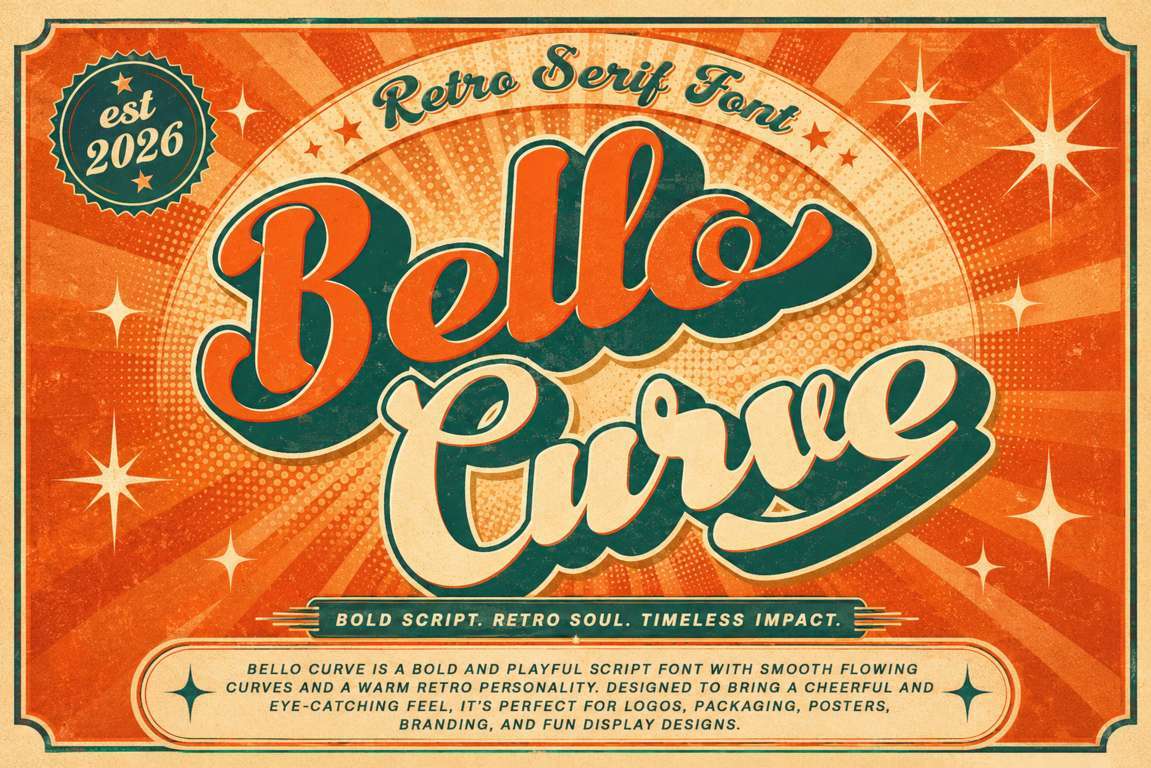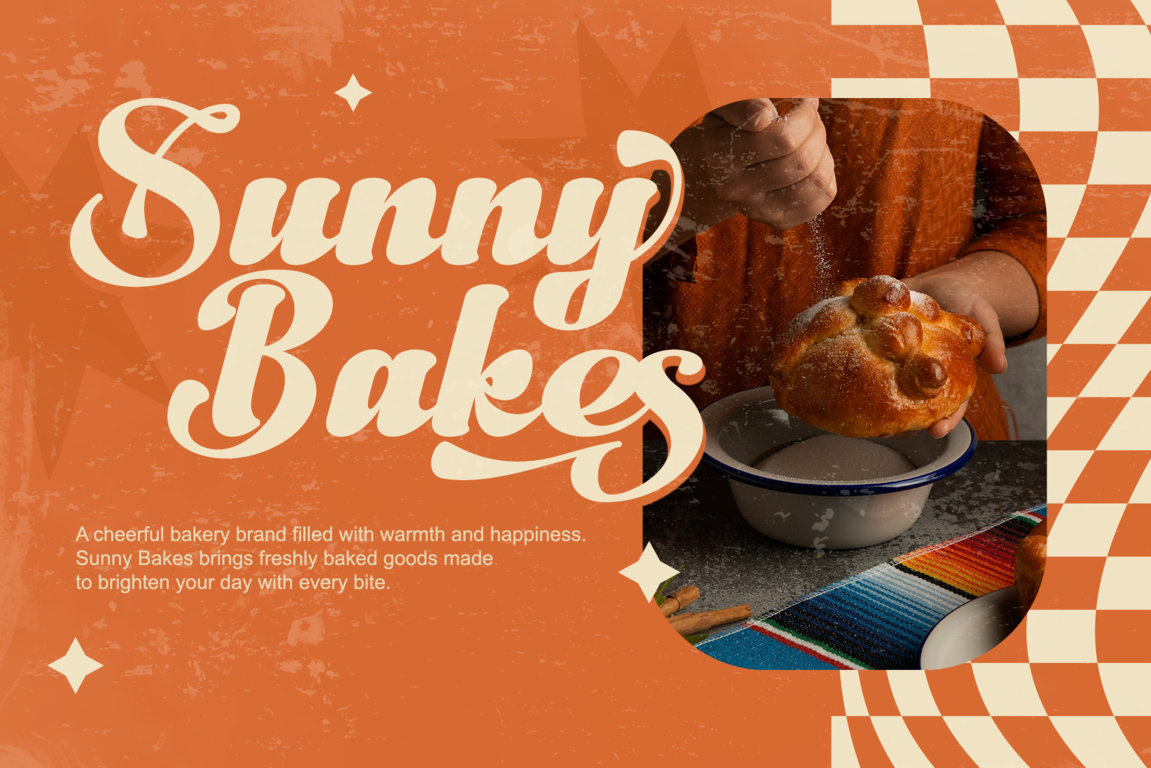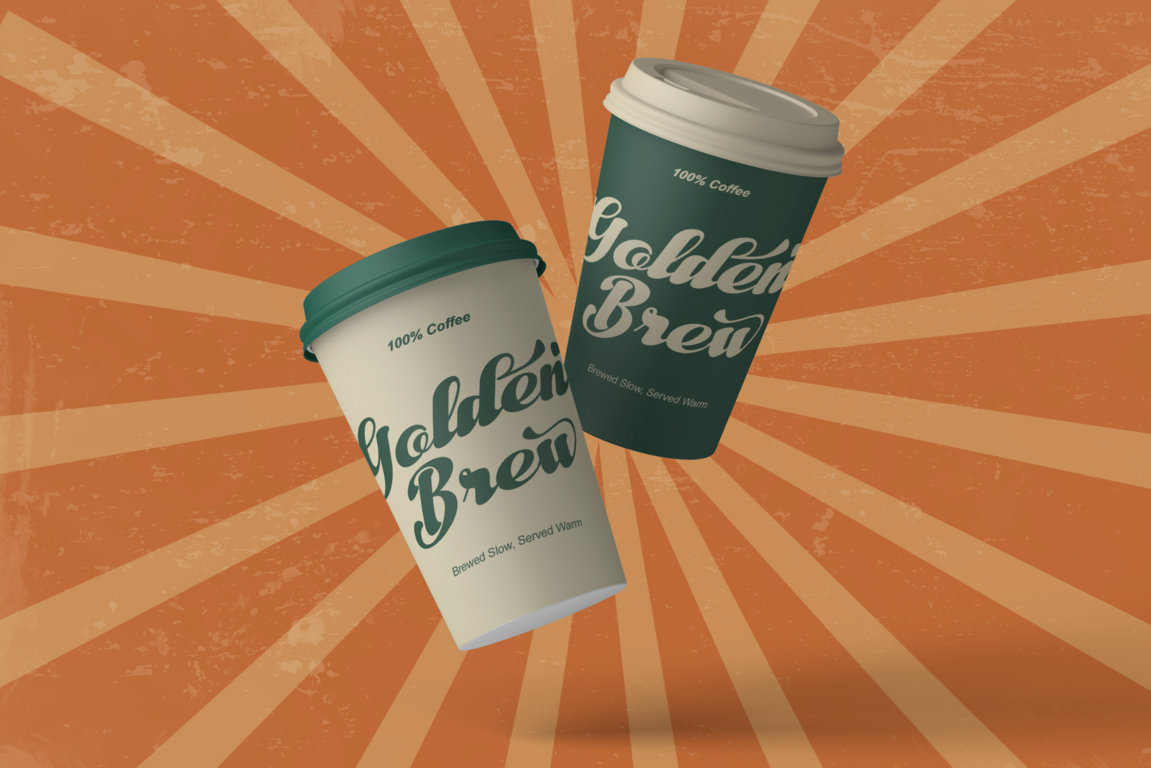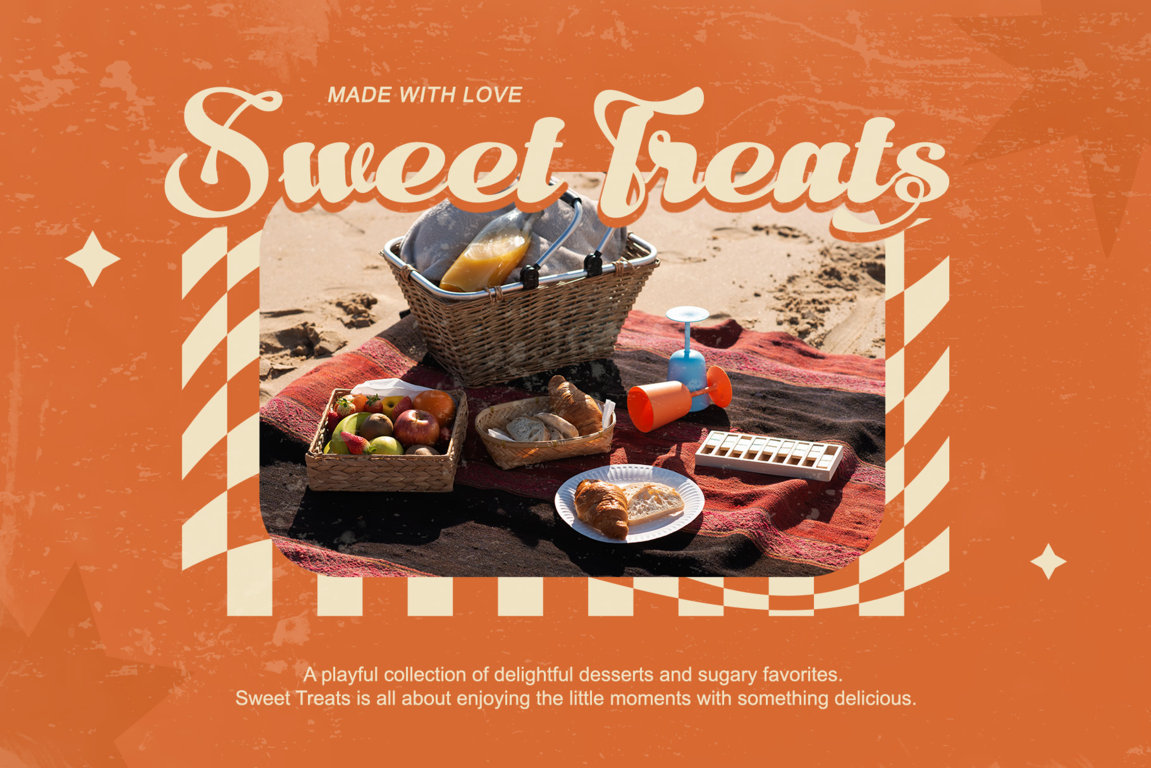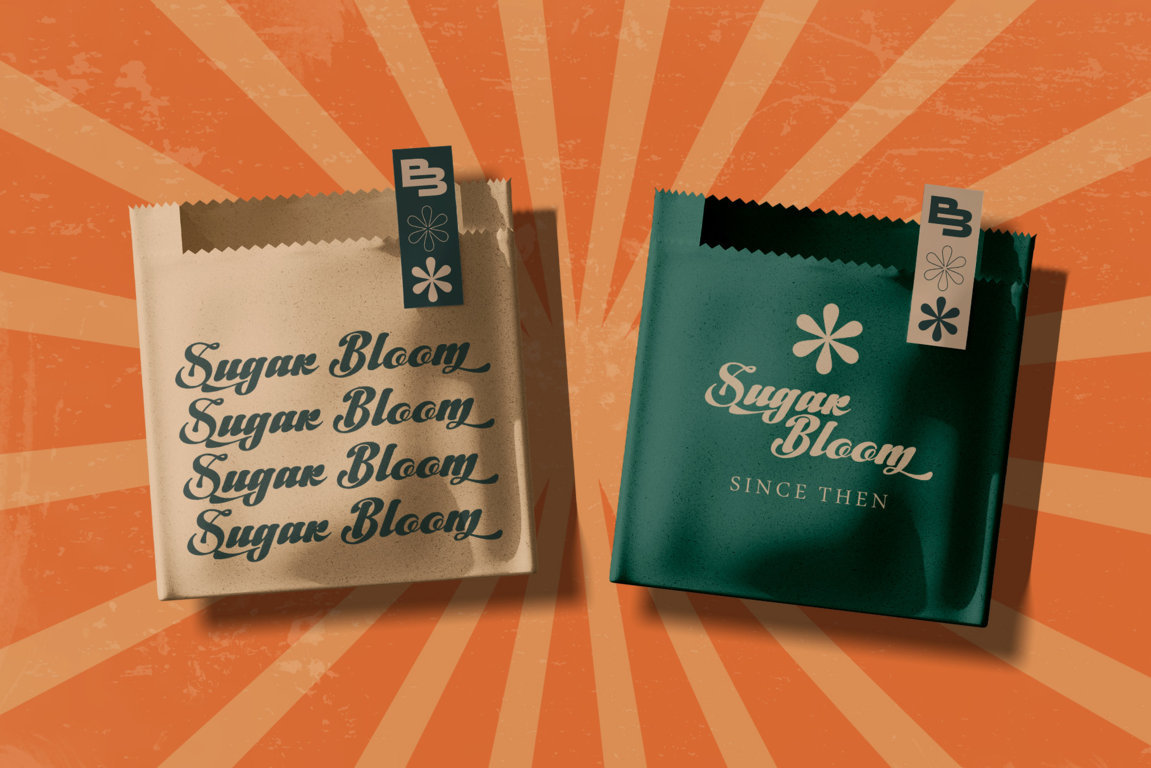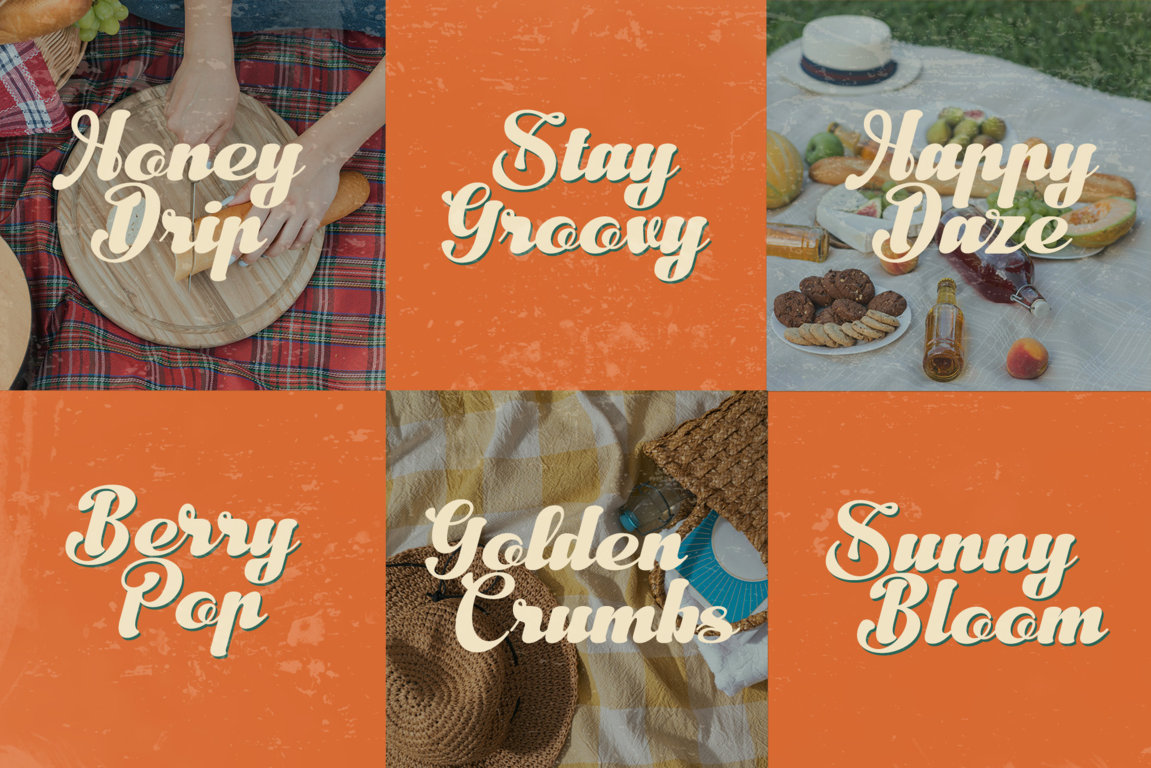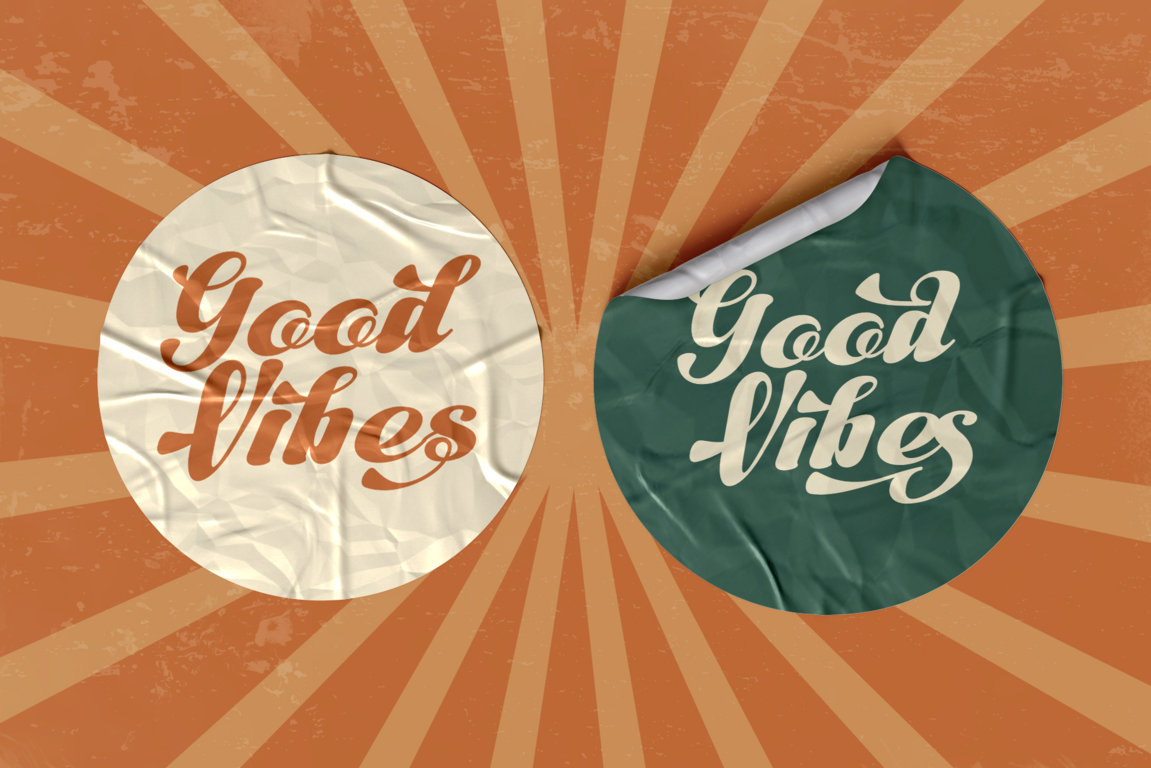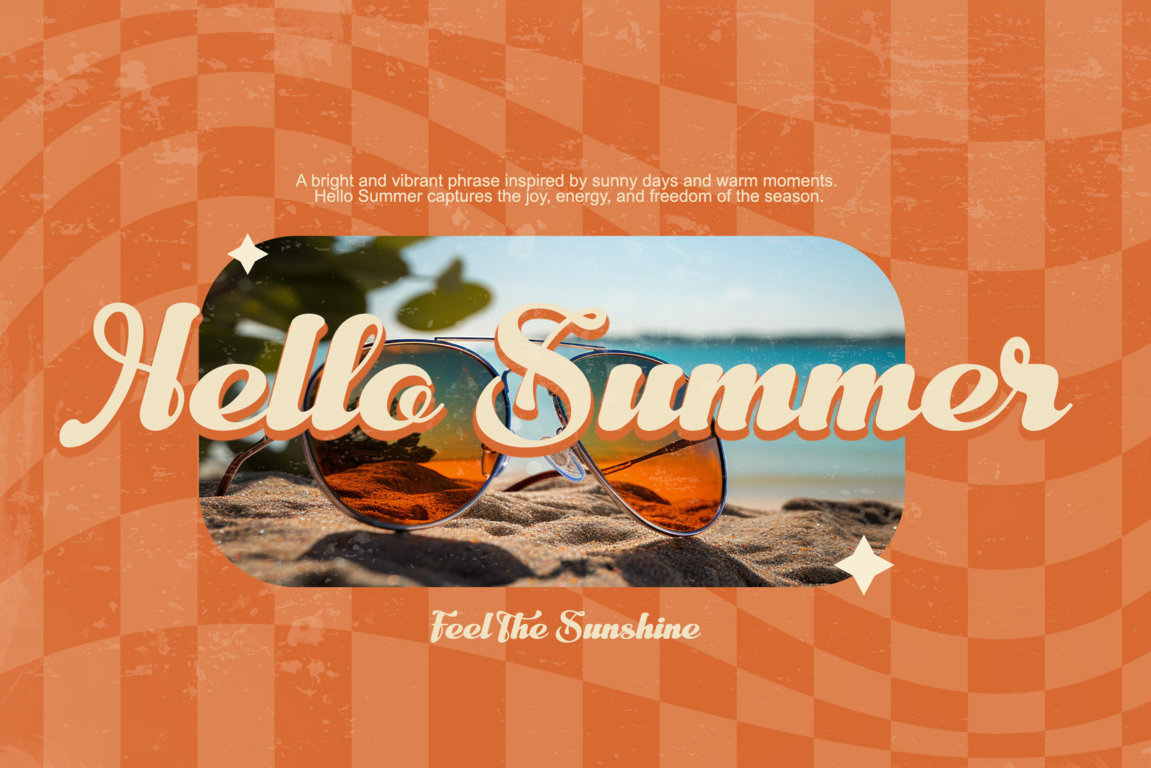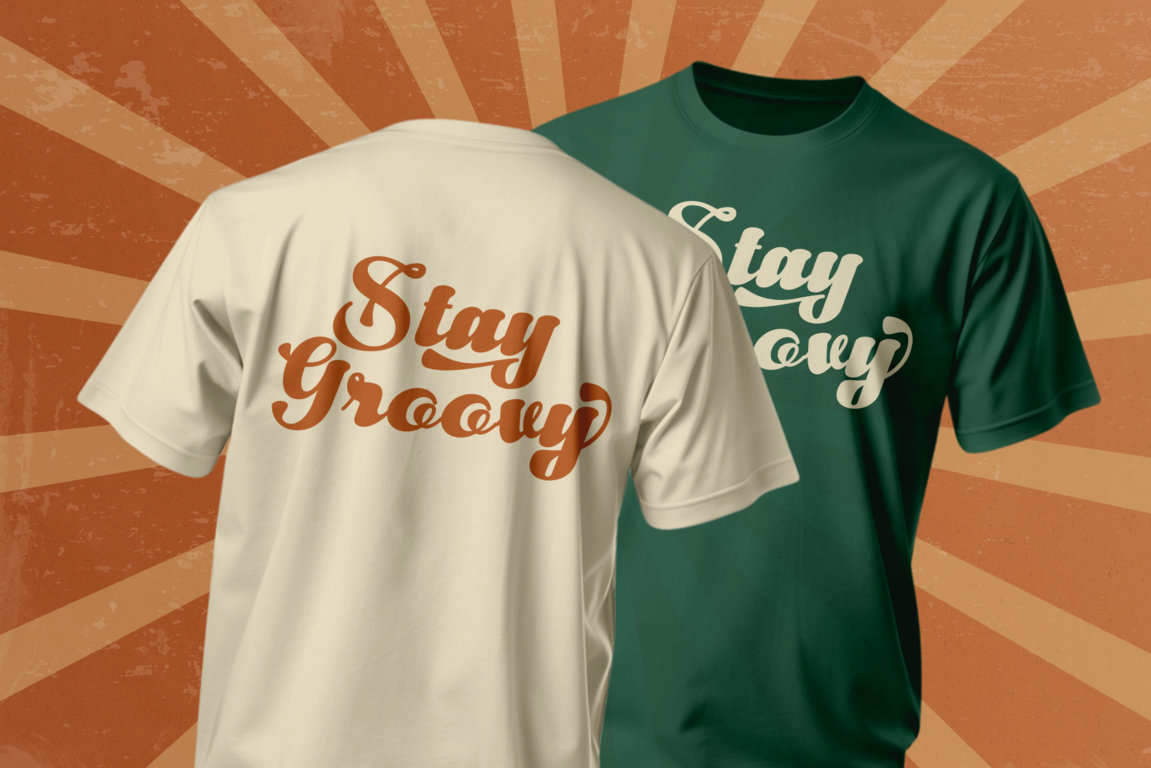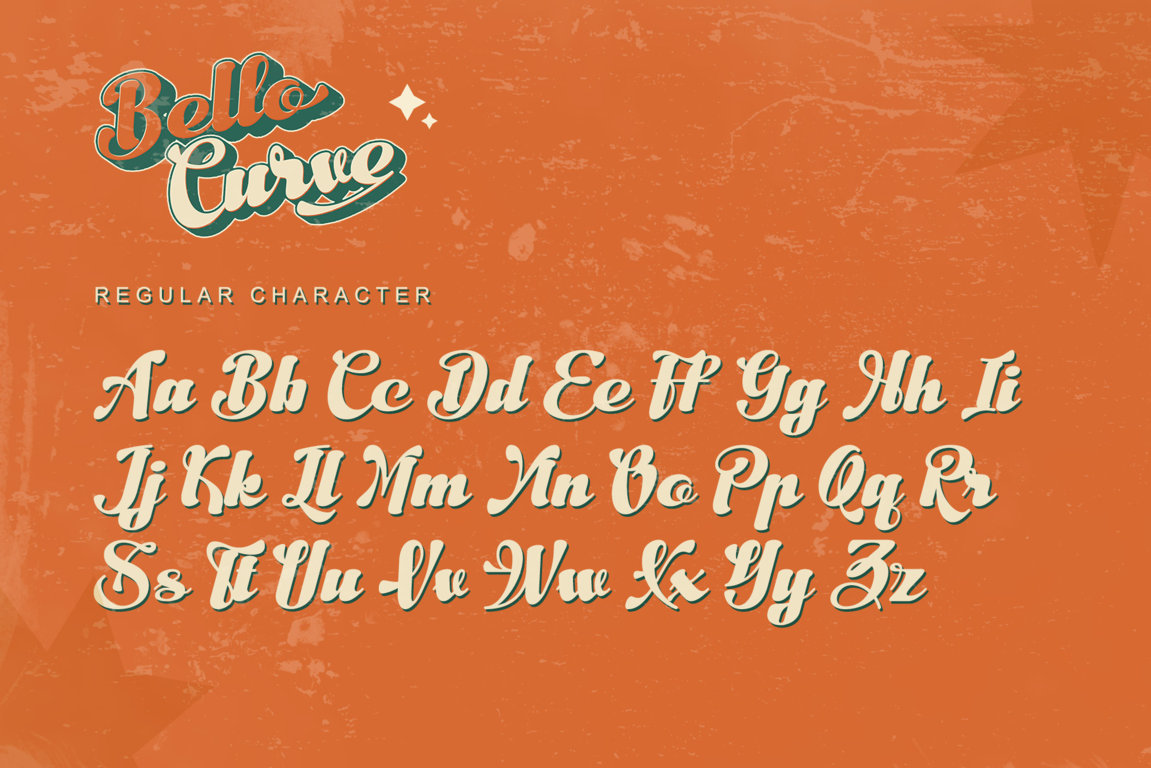
Bello Curve is a bold and playful retro script font inspired by vintage advertising, classic packaging, hand-painted signs, and the cheerful visual style of the 1960s and 1970s.
Designed with smooth flowing curves, confident strokes, and a warm nostalgic personality, Bello Curve brings instant character to logos, packaging, posters, apparel, and promotional designs. Its expressive script style creates a handcrafted appearance while remaining polished, stylish, and highly memorable.
Bello Curve is ideal for designers who want to create friendly, energetic, and eye-catching typography. Use it to build retro wordmarks, food and beverage labels, restaurant identities, product packaging, merchandise, event posters, album artwork, social media graphics, and vintage-inspired branding.
The font includes regular characters, decorative swashes, stylish alternates, titling characters, creative ligatures, numerals, punctuation, symbols, accented characters, and multilingual support. These features allow you to customize individual letters, improve word flow, and create distinctive lettering compositions without designing every element from scratch.
Whether you are creating a nostalgic café logo, colorful packaging, a bold T-shirt design, or an energetic promotional poster, Bello Curve gives your project a cheerful retro spirit with timeless visual impact.
Features:
- Support multilingual; ä ö ü Ä Ö Ü ß ¿ ¡
- Numerals & Punctuation
- lowercase and uppercase letters
- Alternate, swash, titling & ligature
Multilingual Support
Bello Curve includes accented characters for multiple Latin-based languages. Please review the character preview images to confirm the complete glyph and language coverage included in the font package.
Bello Curve is a decorative retro script typeface designed for vintage logos, packaging, restaurant branding, product labels, posters, apparel, album artwork, social media graphics, and promotional designs. It includes regular characters, swashes, alternates, titling characters, ligatures, numerals, punctuation, symbols, accented characters, and multilingual support.